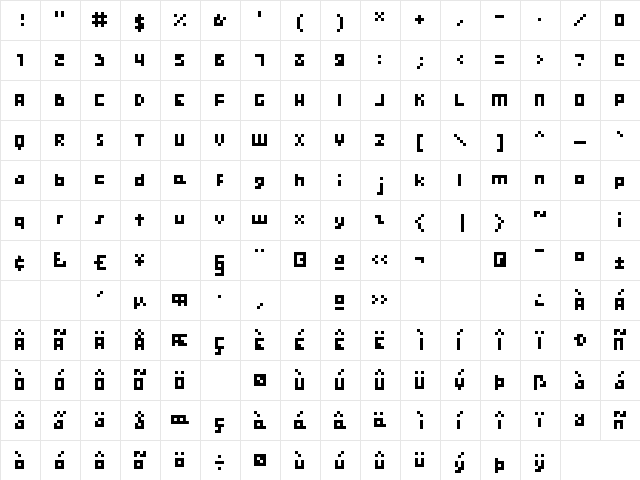
hooge 04_56 Regular Font Preview
hooge 04_56 Regular
hooge 04_56 Regular Font Details
Design Context for hooge 04_56 Typeface
hooge 04_56 offers clean, dependable letterforms without strong stylistic allegiance, making it a practical choice for designers who need flexibility.